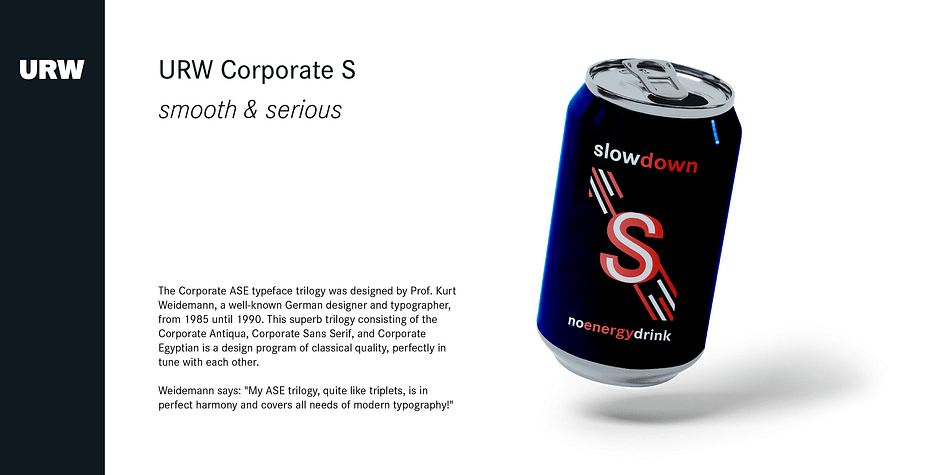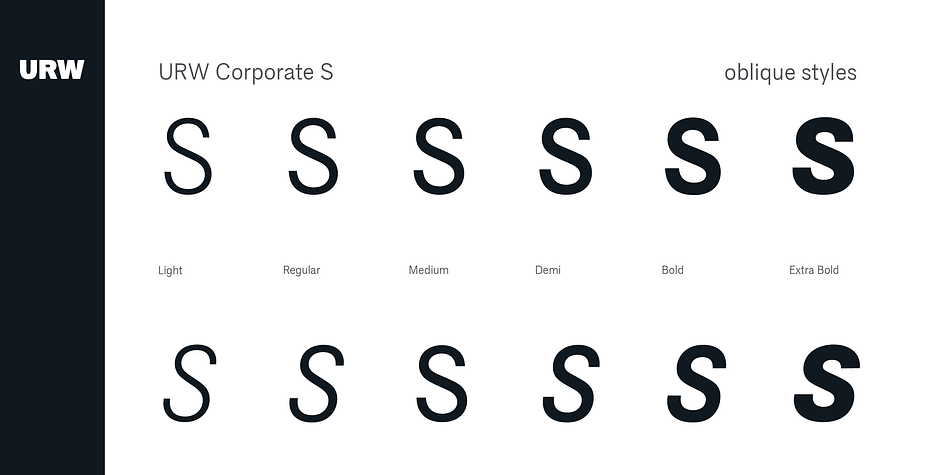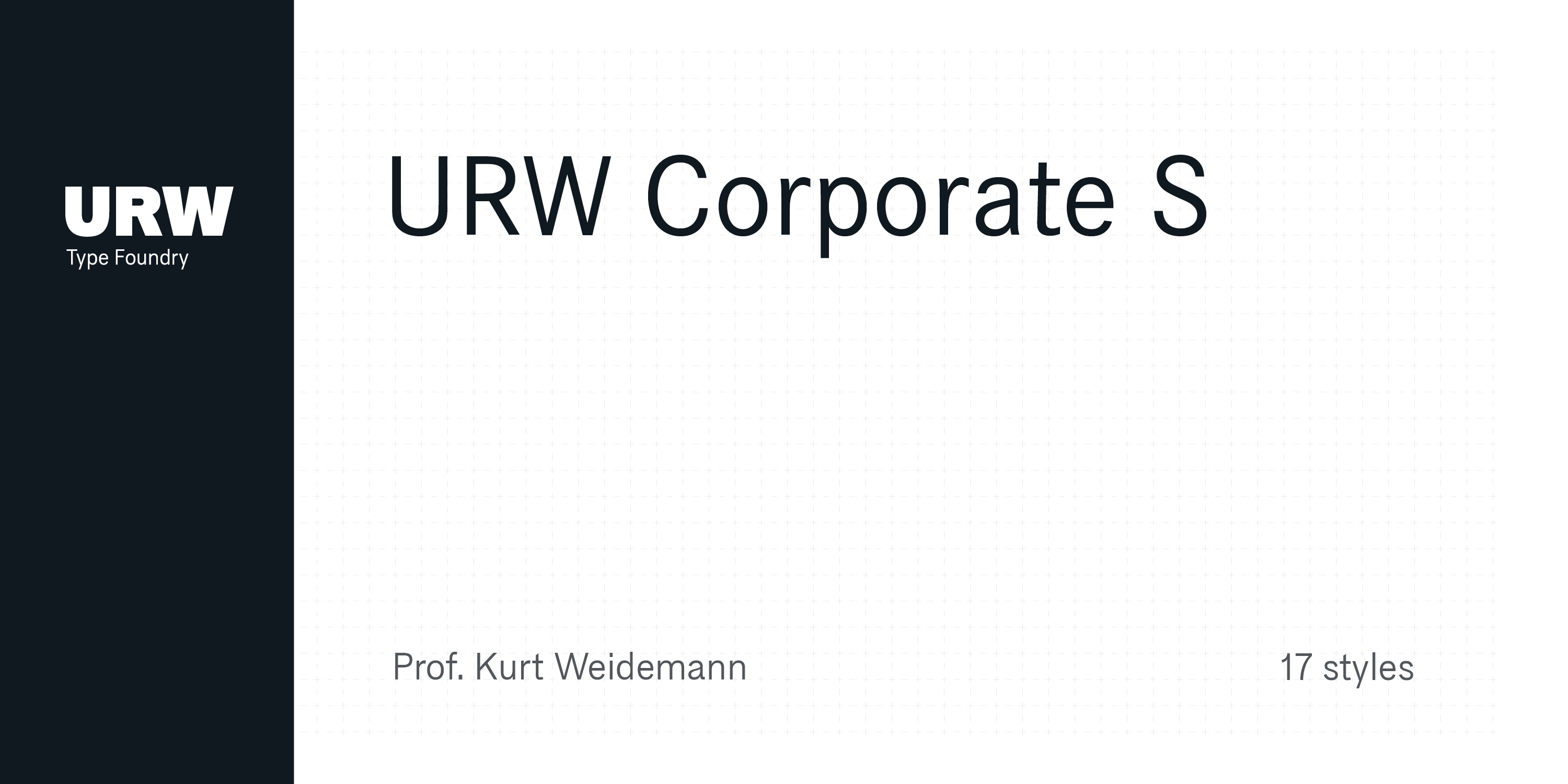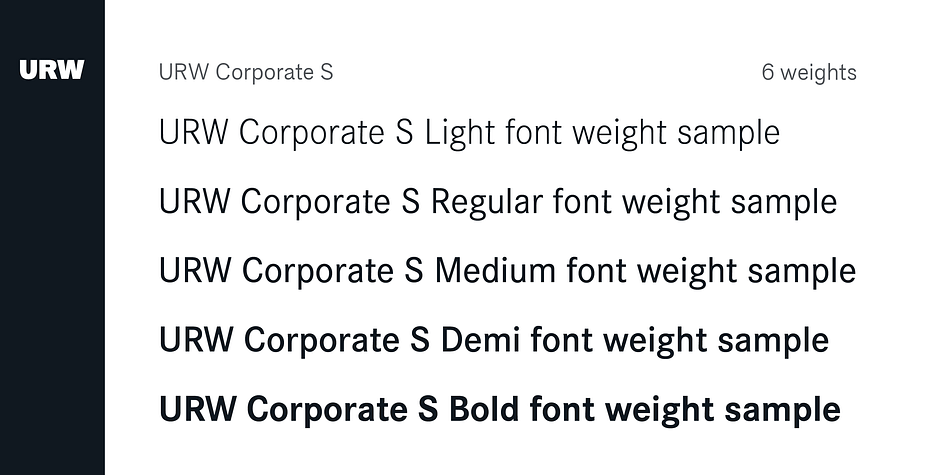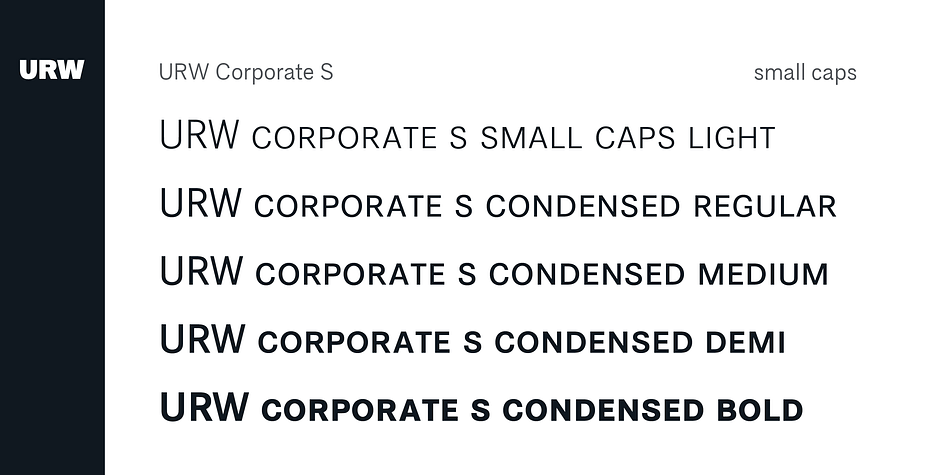
Designed by Kurt Weidemann, URW Corporate S is a sans serif font family. This typeface has seventeen styles and was published by URW Type Foundry.
The Corporate ASE typeface trilogy was designed by Prof. Kurt Weidemann, a well-known German designer and typographer, from 1985 until 1990. This superb trilogy consisting of the Corporate Antiqua, Corporate Sans Serif, and Corporate Egyptian is a design program of classical quality, perfectly in tune with each other. Weidemann says: ‘My ASE trilogy, quite like triplets, is in perfect harmony and covers all needs of modern typography!’.